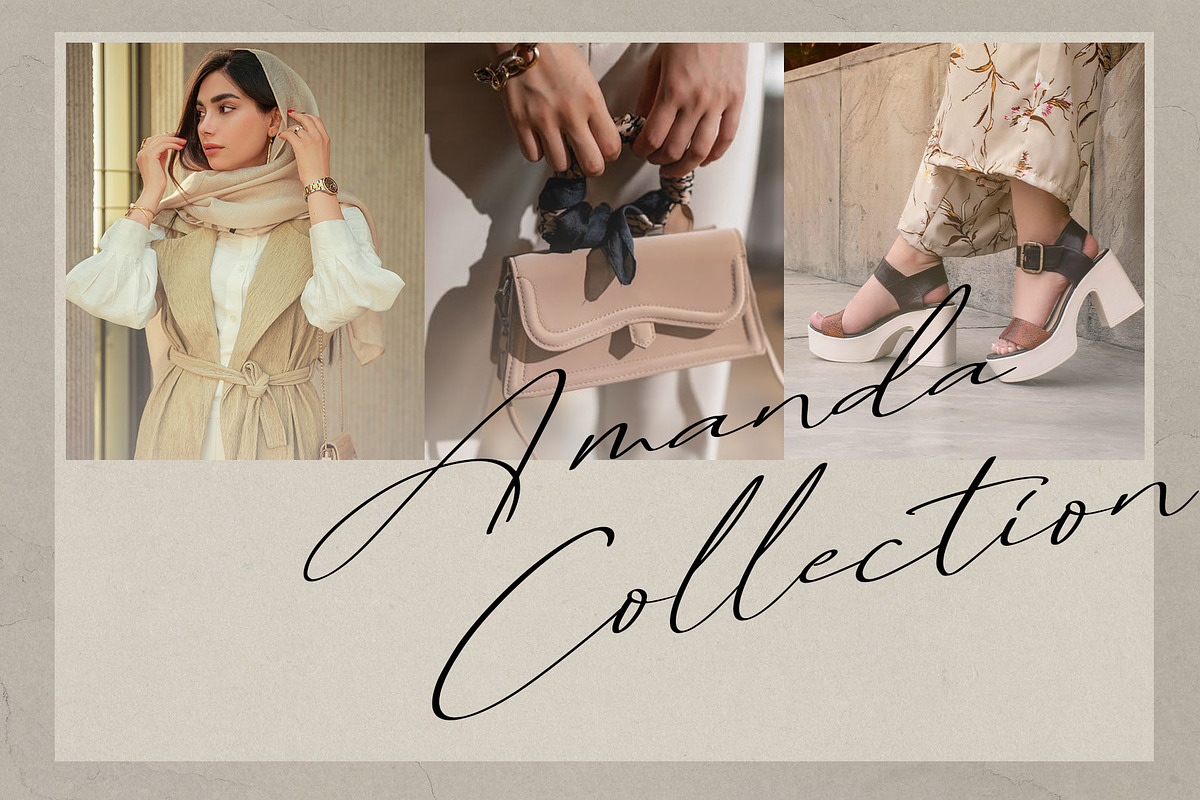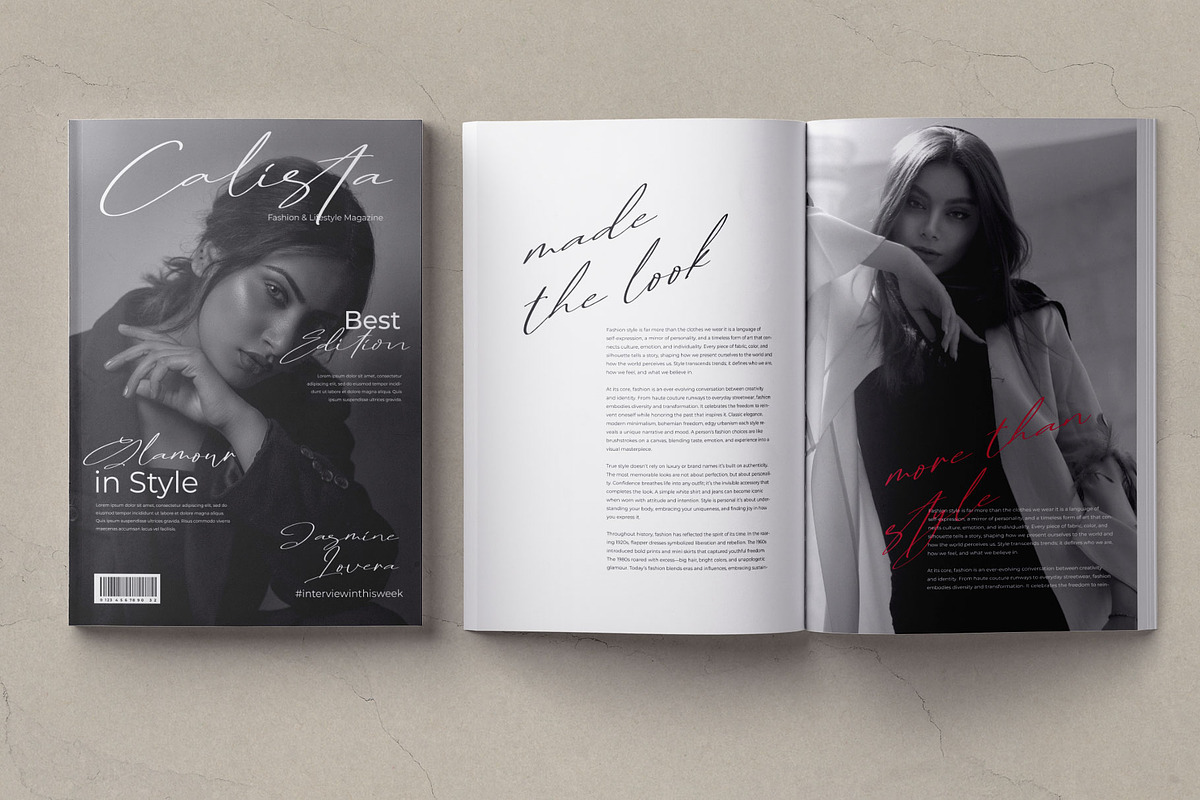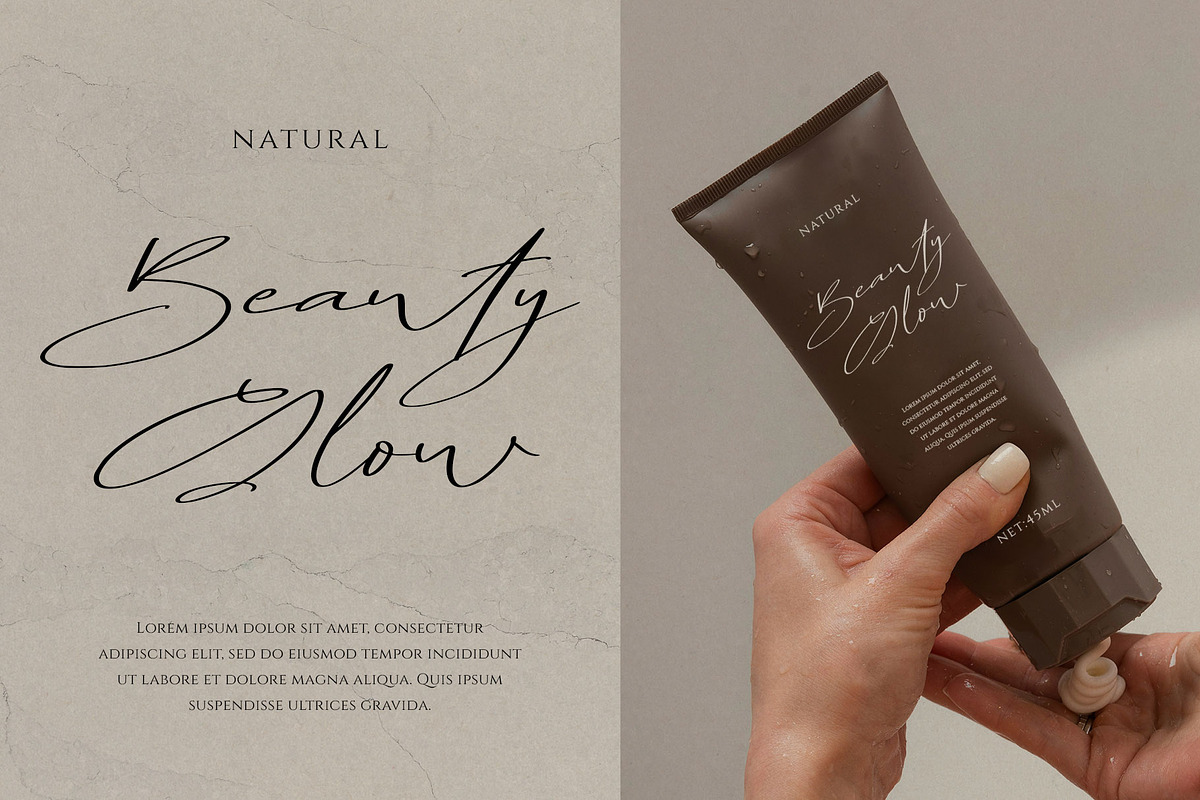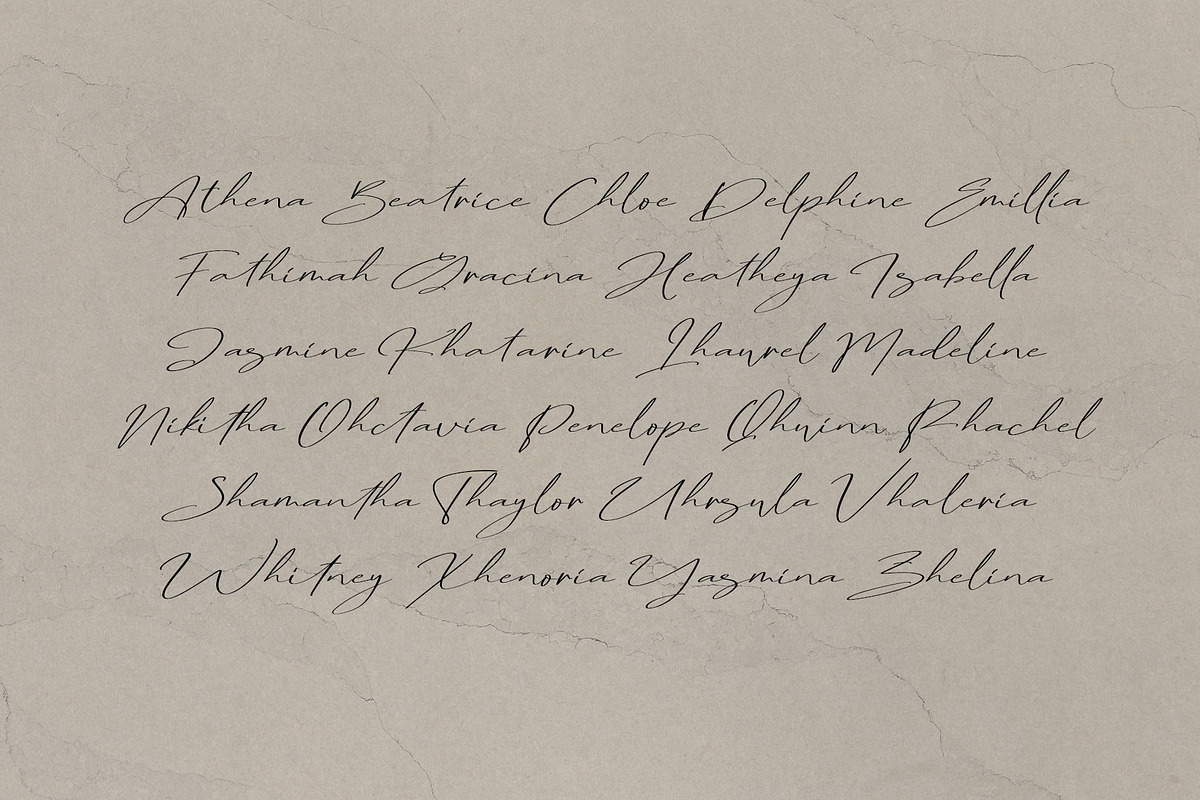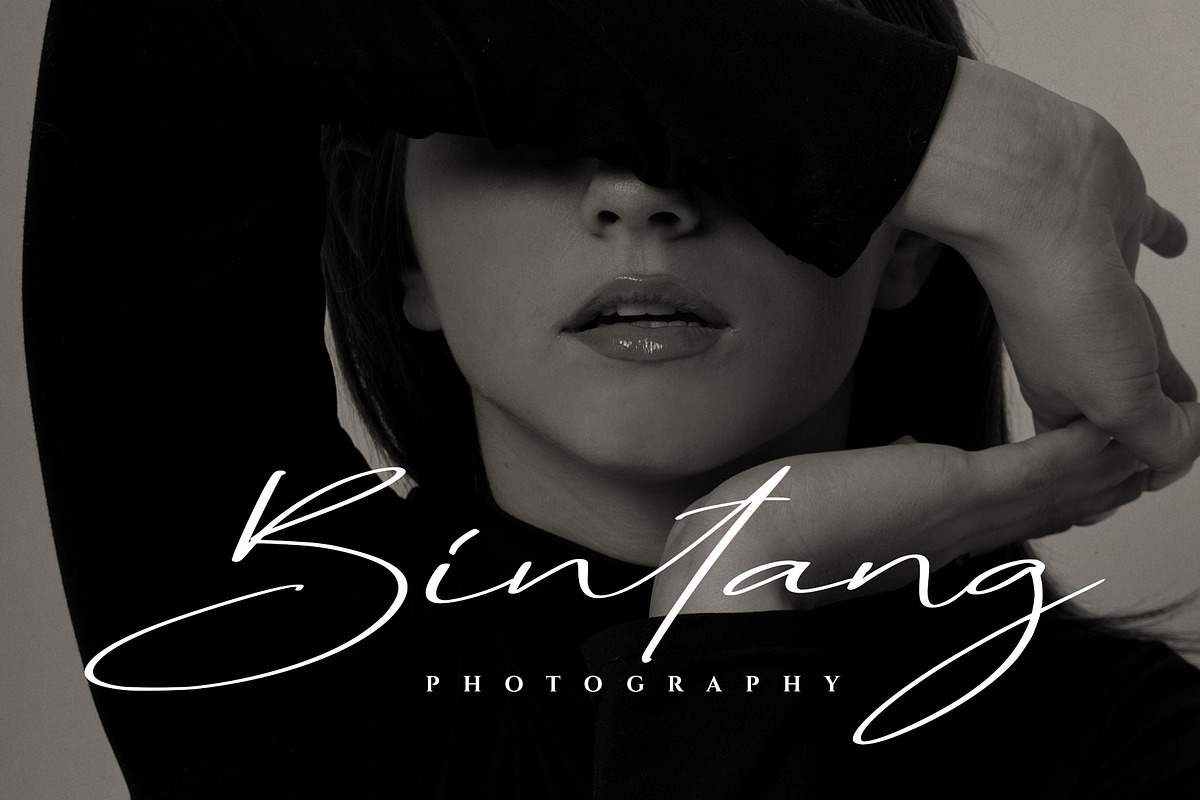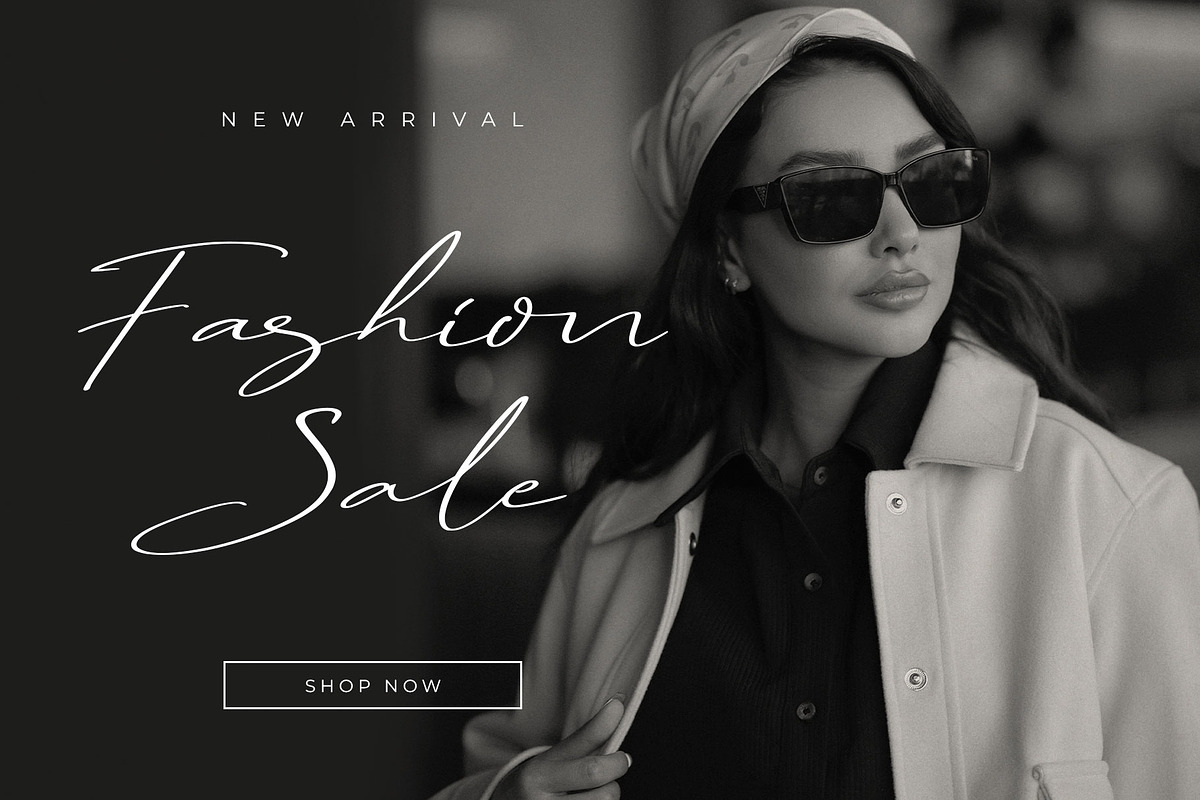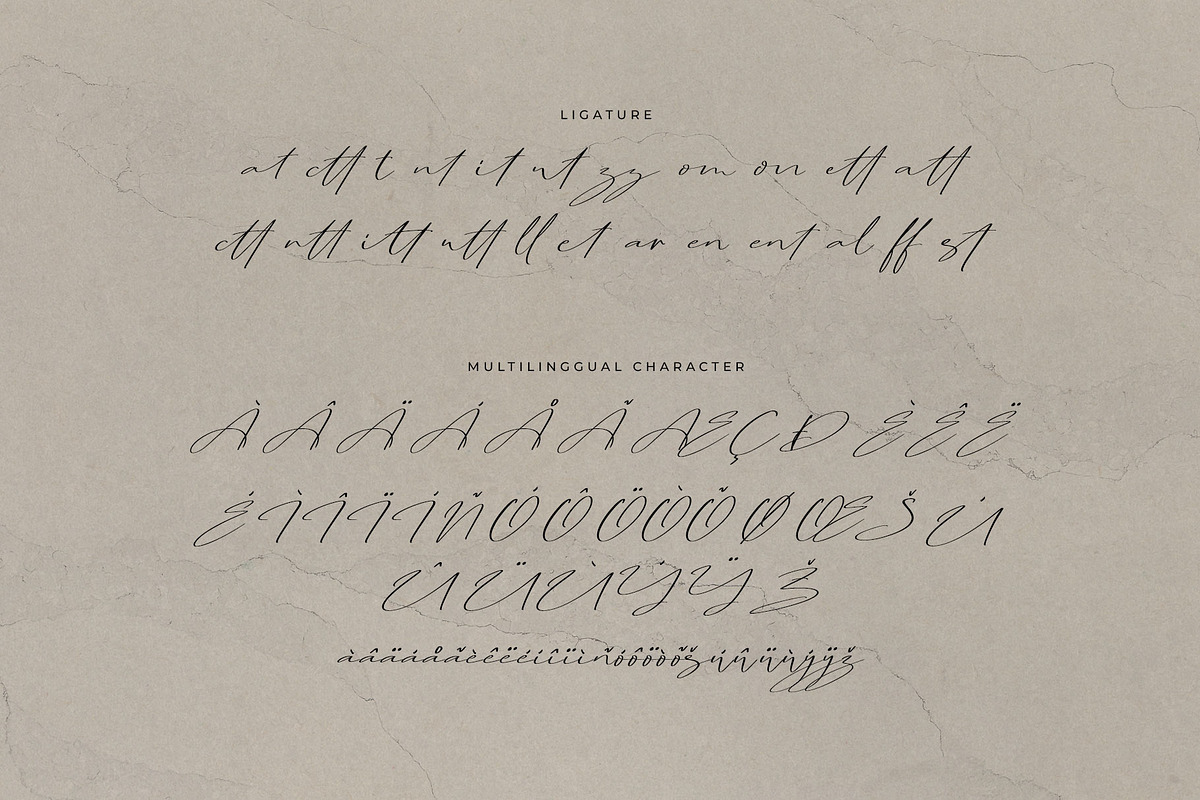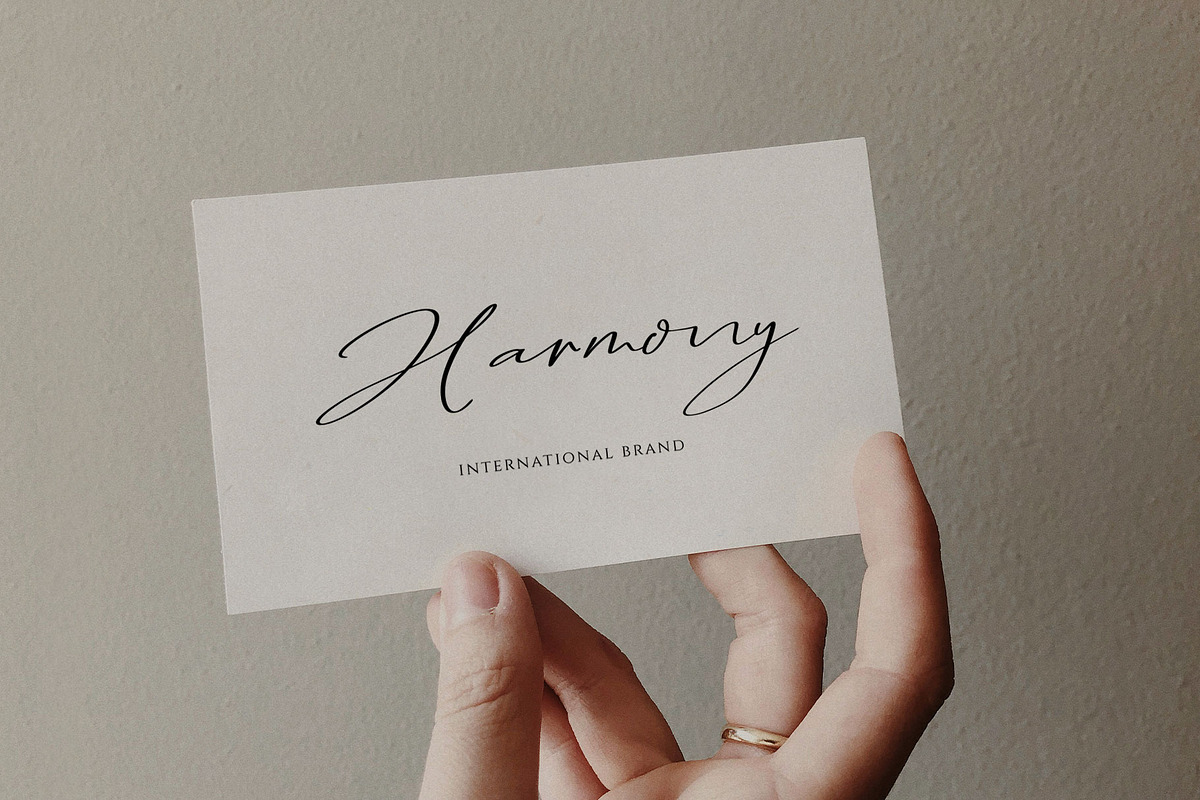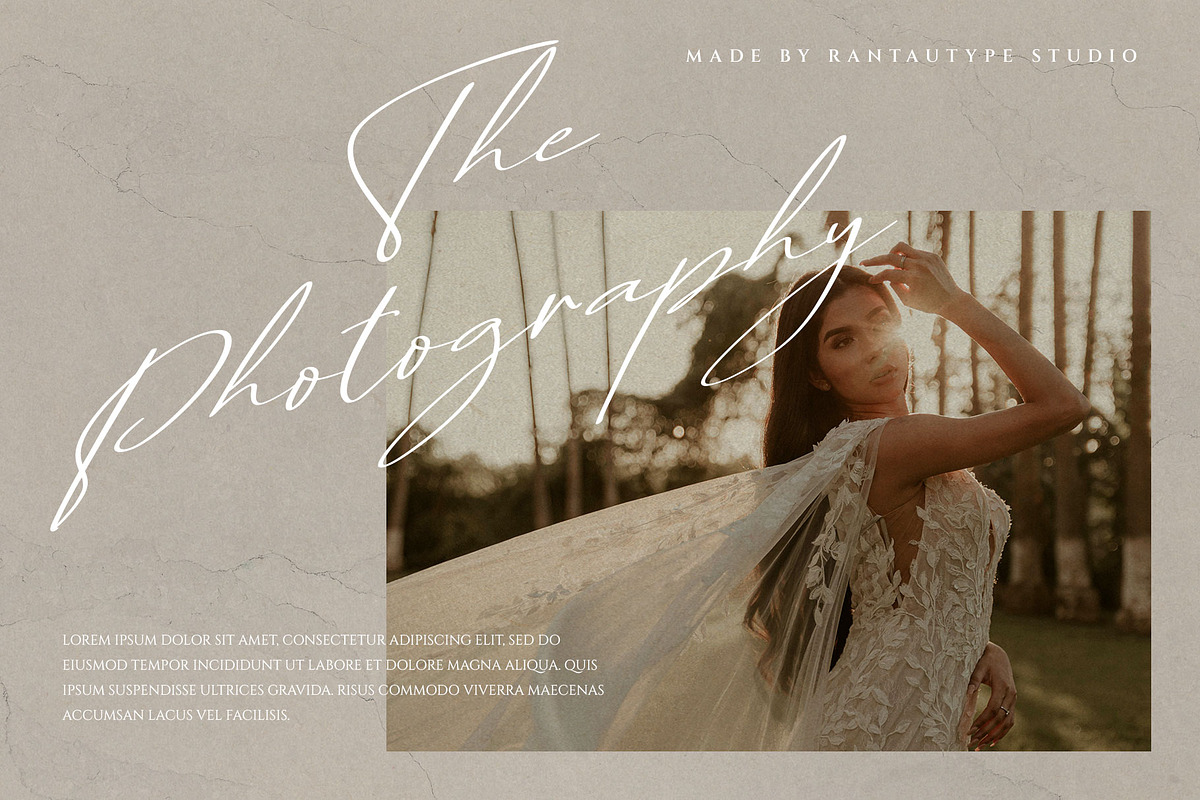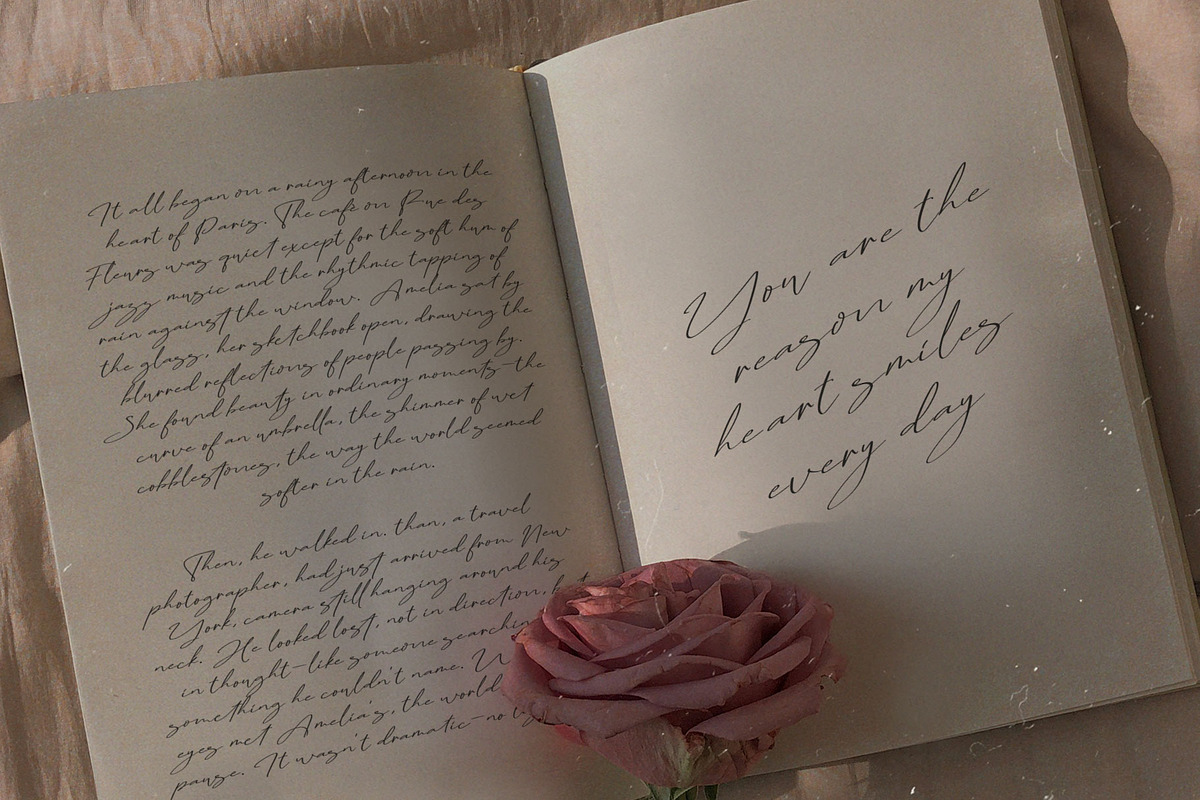
Kentalia Signature Font
Kentalia is signature script font made by rantautype studio. Kentalia come with style and elegant character to make your design stand out!. Kentalia is a perfectly choice for any creative endeavor, creating, modern, lifestyle design such as logotype, title, cover, branding, invitations, wedding designs, display and magazine, social media posts, advertisements, printed quotes, product packaging, corporate brand, product designs, labels, photography, watermarks, special events and any other project with modern touch.
- Alternate and ligature